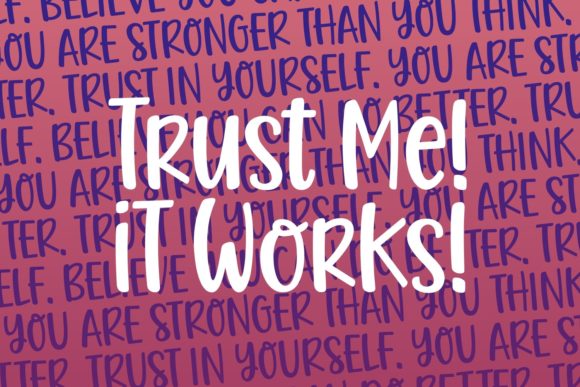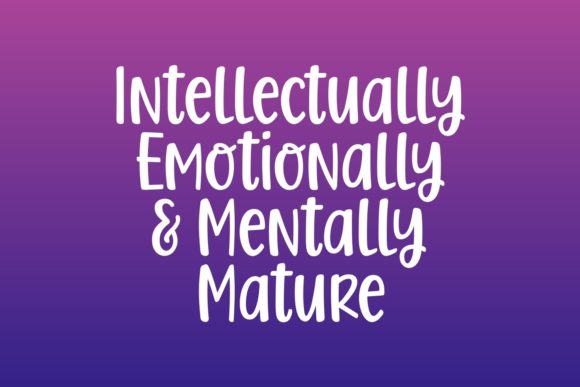
Strong Woman Font
db-ku.com - Script & Handwritten -- The Strong Woman font is a beautiful handwritten font, with cute swirly details. This quality font is perfect to use when adding a personal touch to your designs, with it’s handwritten style it will bring that personal feeling to any project.